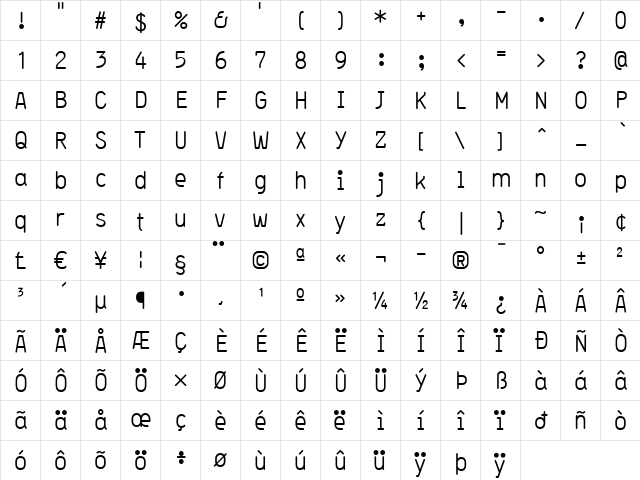
Storno Regular
Design Context for Storno Typeface
Storno takes a measured approach to typography — its balanced proportions and neutral character make it a reliable workhorse for both digital and print work.